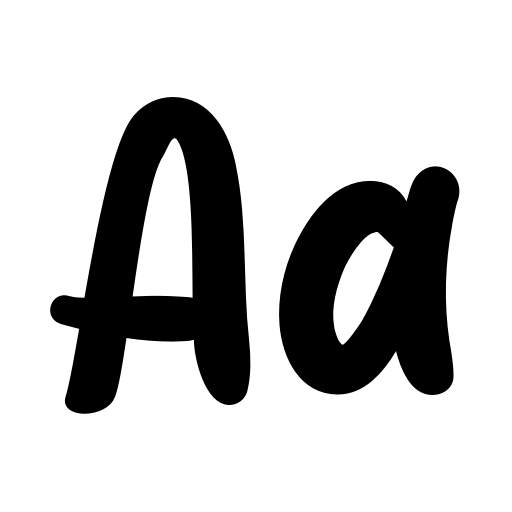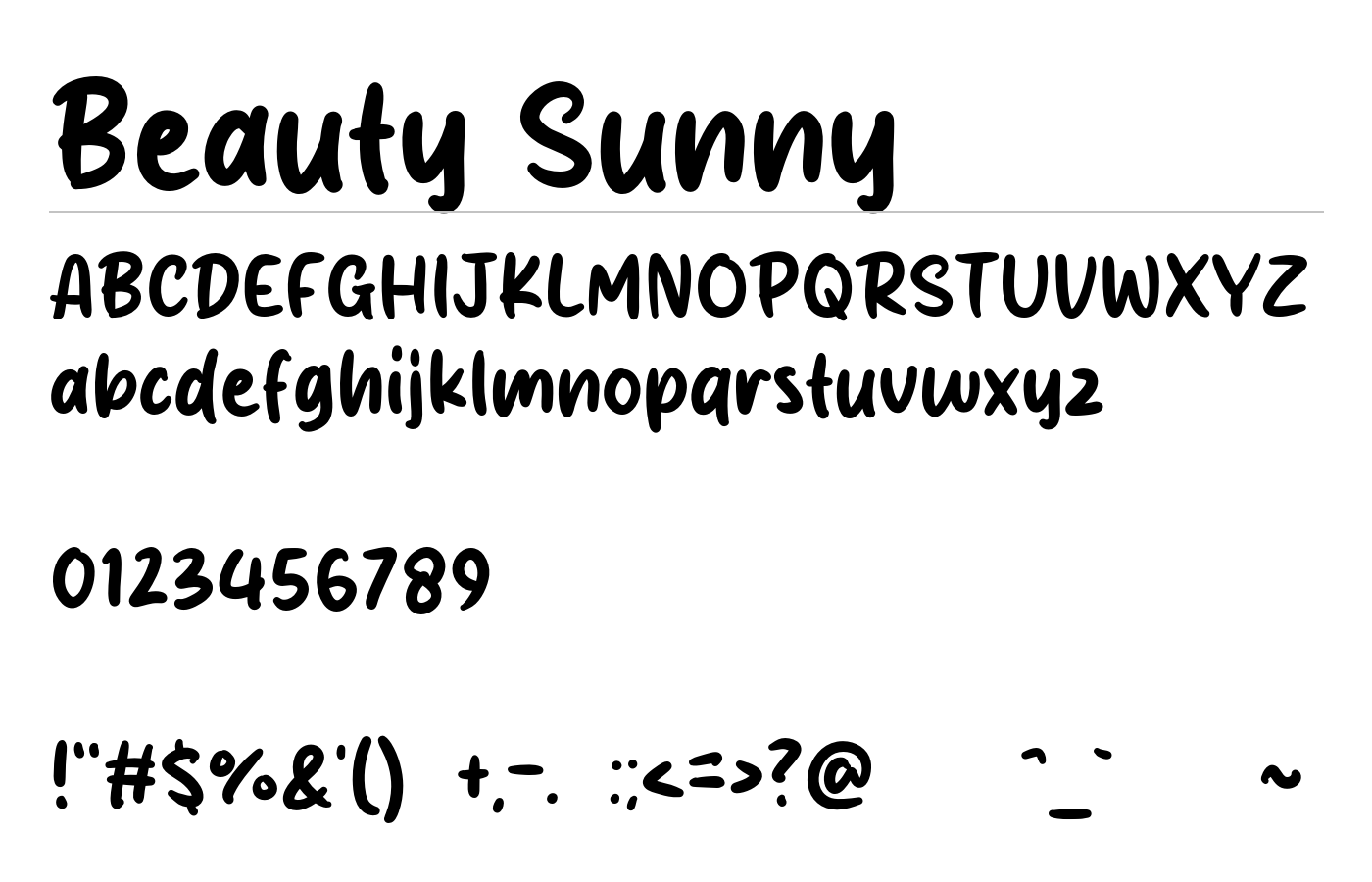
Beauty Sunny is a playful and friendly handwritten sans serif font with a casual, rounded style that gives it a warm and approachable feel. Its moderate weight and lively letterforms make it perfect for informal branding, children’s materials, and creative projects that want to convey cheerfulness and energy. This font works well in headlines, logos, and packaging where a personal and inviting touch is desired.
Beauty Sunny Font
About Beauty Sunny Font